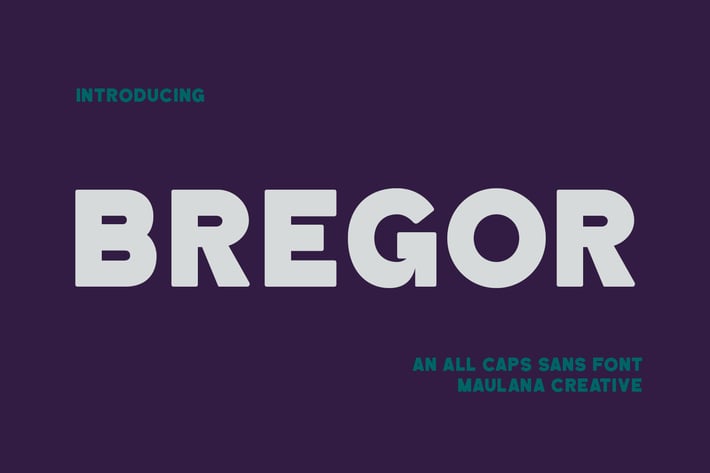
Bregor Sans Display Font
Bregor is an All caps simply strong sans serif font. With Bold stroke, fun character with a bit of ligatures and alternates. To give you an extra creative work. Bregor font support multilingual more than 100+ language. This font is good for logo design, Social media, Movie Titles, Books Titles, a short text even a long text letter and good for your secondary text font with script or serif. Make a stunning work with Bregor font.